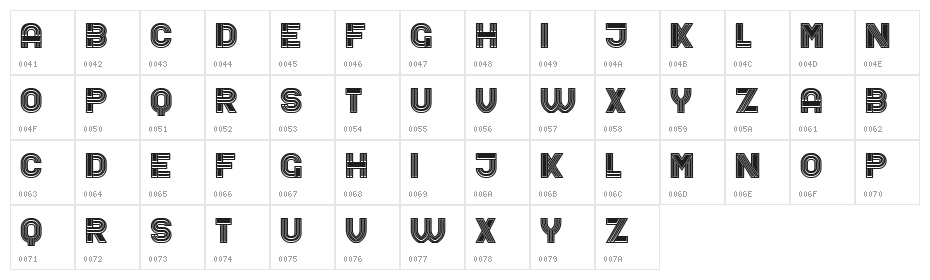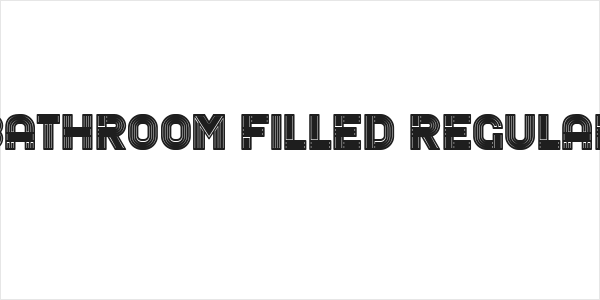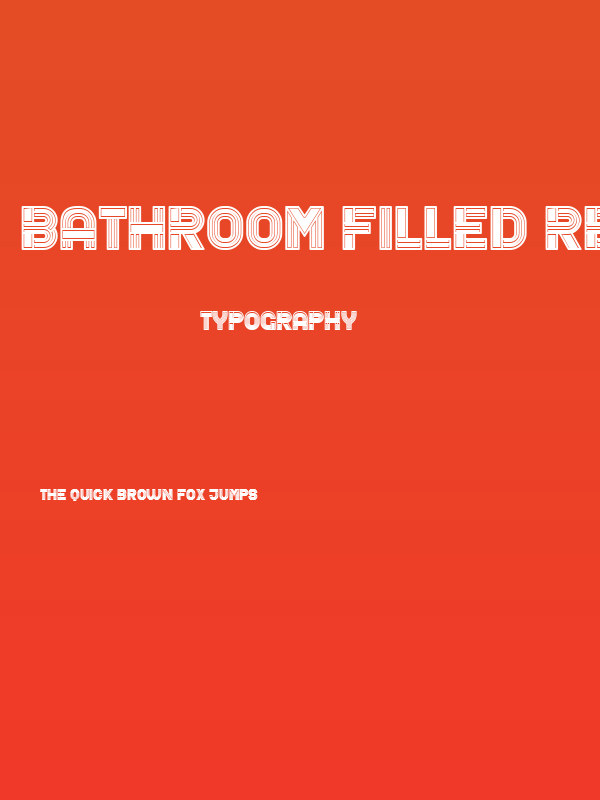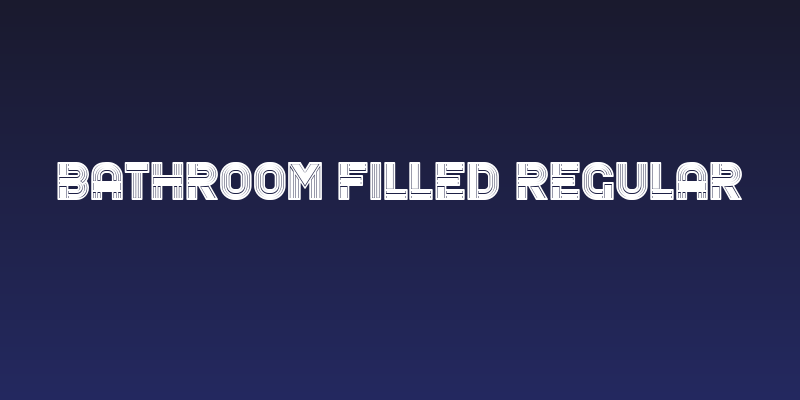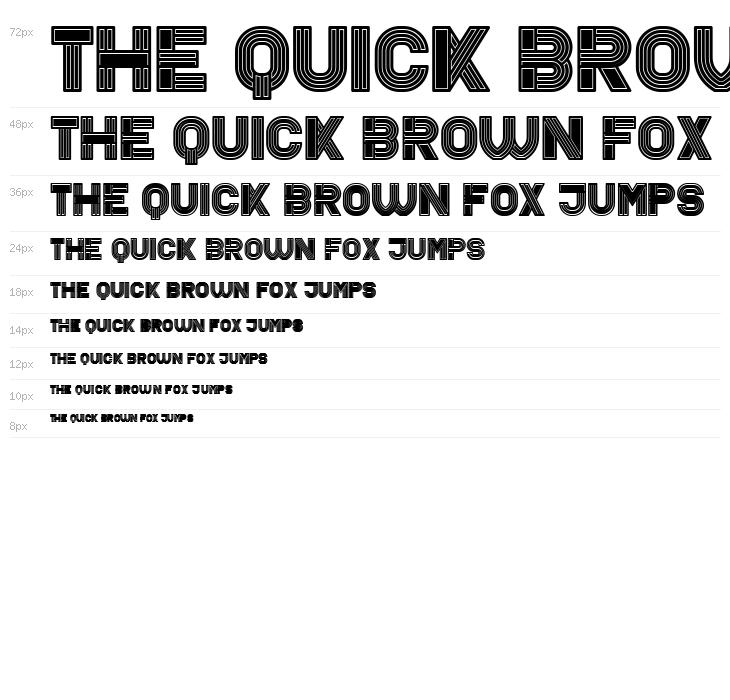
Bathroom Filled Regular Font
Bathroom Filled Regular Description
This font features a bold, geometric design with a filled pattern that creates a striking visual impact. Each letter is constructed with multiple parallel lines, giving it a layered, dimensional appearance. The style is reminiscent of Art Deco, with a modern twist that incorporates intricate detailing. The uppercase letters are uniform in height and width, creating a cohesive look across the alphabet. The design is both decorative and functional, making it suitable for a variety of creative applications. The font's unique structure and bold presence make it ideal for projects that require a standout typographic element.
Overall StyleModern, Decorative
Proposed ProjectsIdeal for posters, branding, packaging, and any project requiring a bold, decorative typeface.